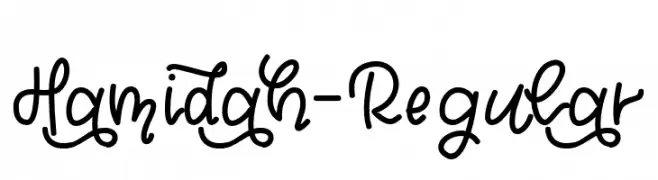
A collection of stylized animal and mythical creature silhouettes with tribal and indigenous art influences.
A bold, geometric font with angular strokes and a modern aesthetic.
A modern, geometric sans-serif font with clean lines and uniform strokes.
A refined serif font with elegant lines and balanced proportions.
A playful, hand-drawn font with irregular, organic shapes and a whimsical style.
A playful collection of cartoon-style face illustrations.
A hand-drawn, textured font with a casual and artistic style.
A modern, bold sans-serif font with geometric influences and uniform stroke width.
A bold, geometric font with an industrial and robust design.
Pixel-style monochrome icon set with office and tech motifs.
Pixel art icon font with retro computer and office symbols.
A playful, casual handwritten font with smooth, flowing letterforms.
A whimsical, artistic font with fluid, curvy lines and playful forms.
A whimsical, artistic font with playful, exaggerated letterforms and a hand-drawn quality.
A playful, hand-drawn font with tall, narrow letters and a whimsical style.
A cursive, handwritten-style font with elegant, flowing connections.
A fluid and artistic font with dynamic strokes and a modern calligraphic influence.
A refined and elegant script font with a traditional Naskh style.
A decorative font with an exotic, ancient script style.
A bold, hand-drawn font with a playful and energetic style.
A modern, rounded font with a friendly and approachable style.
A bold, modern font with thick strokes and a strong presence.
A dynamic, cursive script font with a personal and artistic touch.
A playful, hand-drawn font with bold, rounded strokes and a whimsical style.
A bold, hand-drawn font with a playful and chaotic style.
A bold, expanded, and italic font with a playful handwritten style.